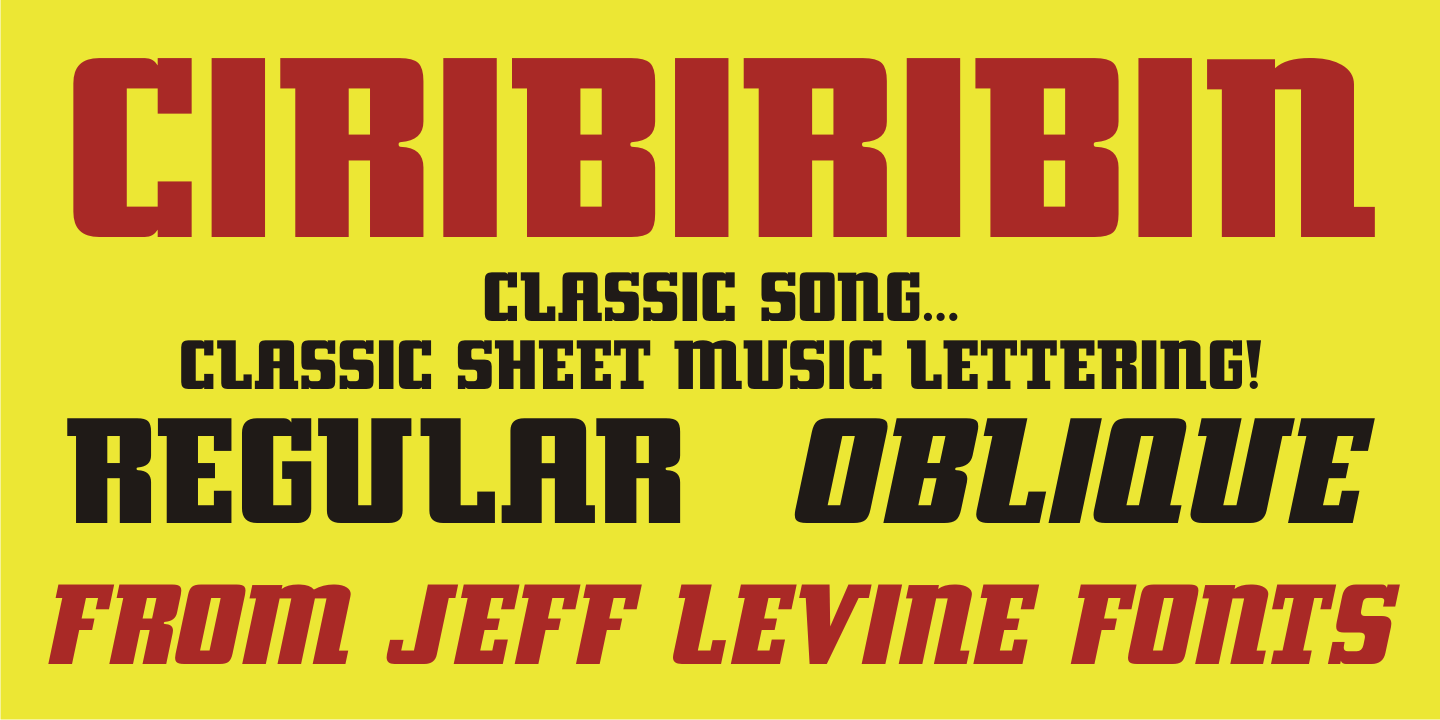
Ciribiribin
"Ciribiribin" is an Italian ballad composed by Alberto Pestalozza in 1898. Many versions with different sets of lyrics have been recorded over the years.
The hand lettering on the sheet music for one such popular version of the song was comprised of bold characters with a "semi-serif" treatment; that is, characters with partial or no serifs on certain strokes of the letters.
Ciribiribin JNL extends this unique design into a complete digital typeface. Available in both regular and oblique versions.